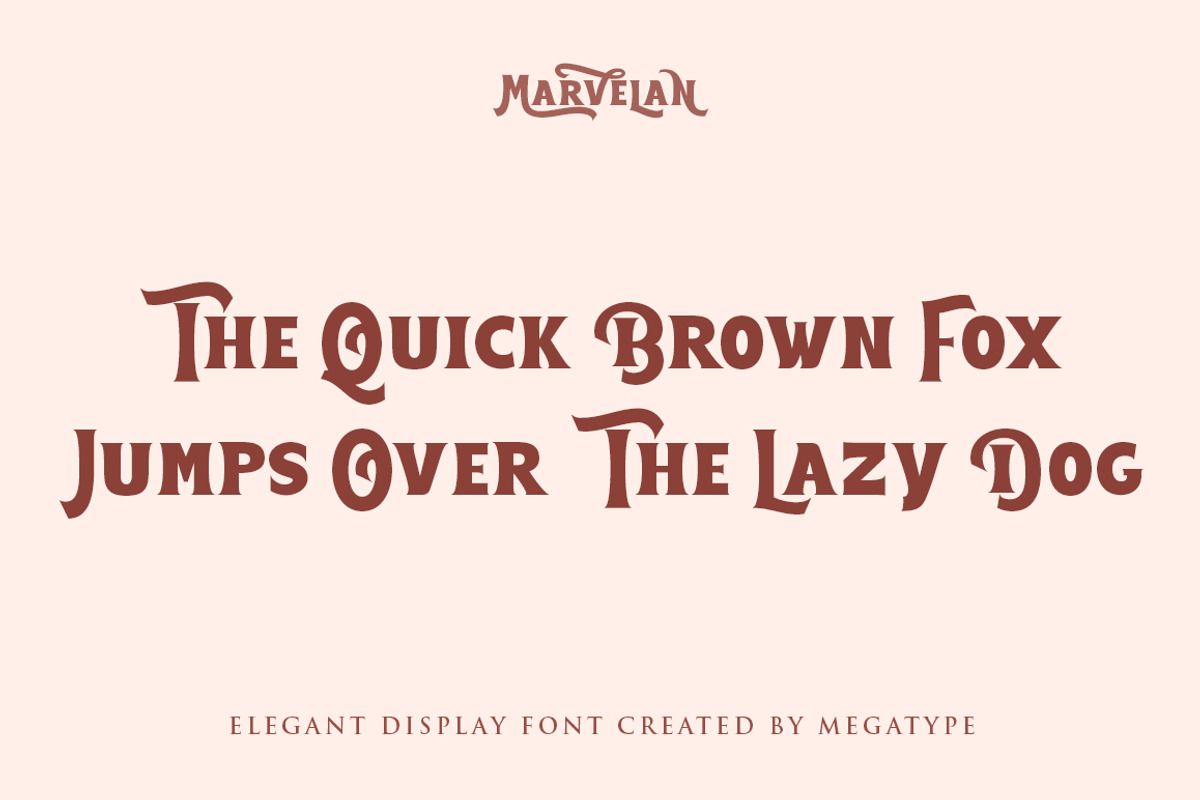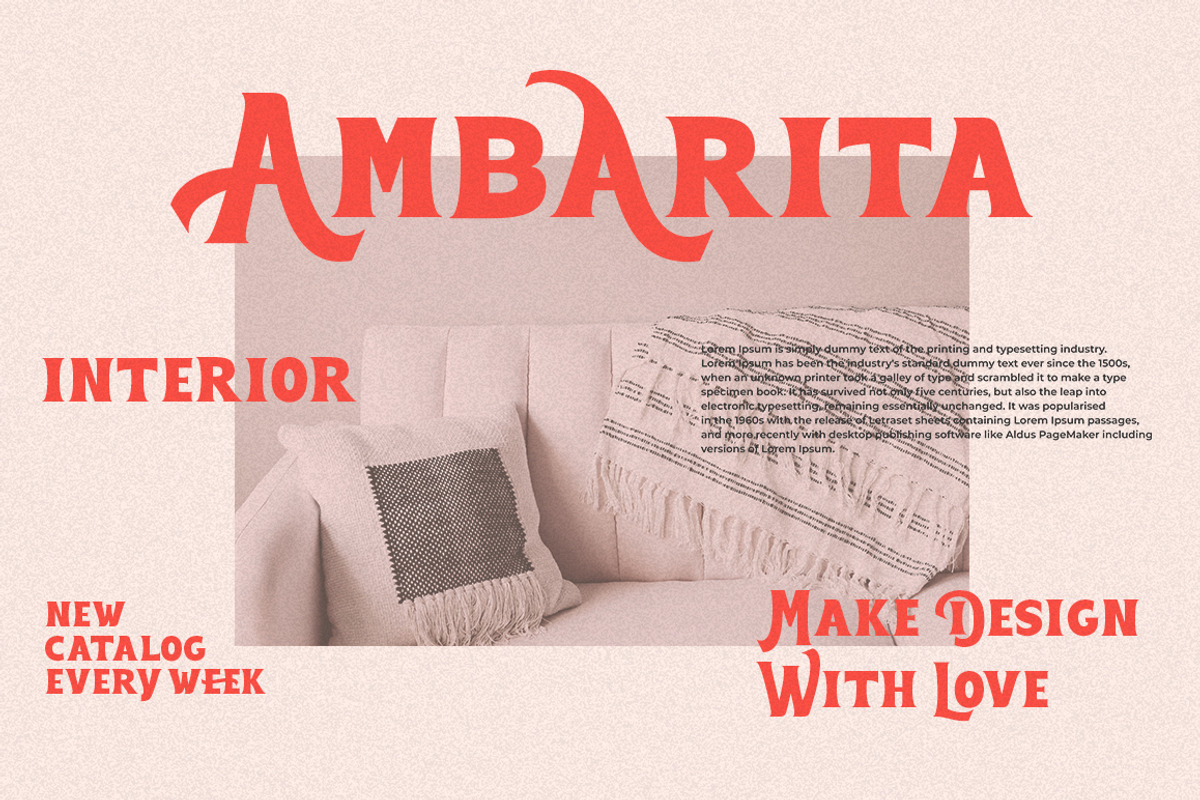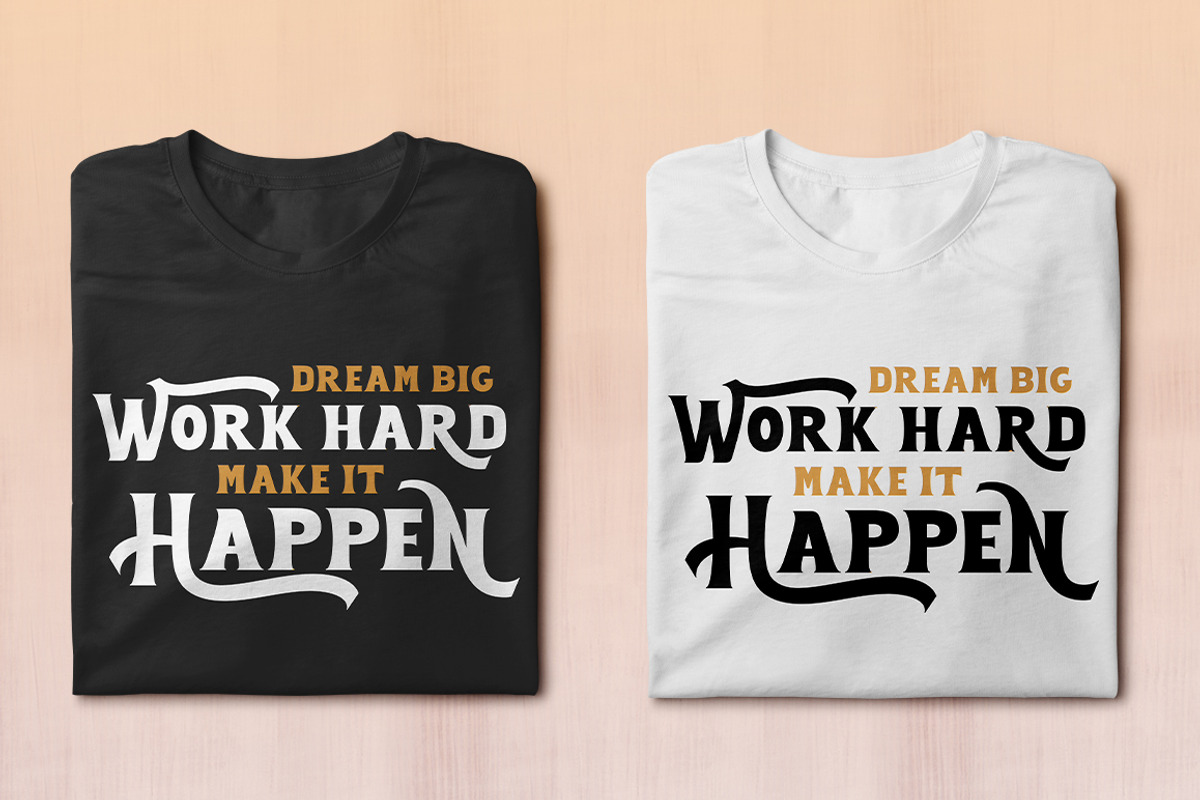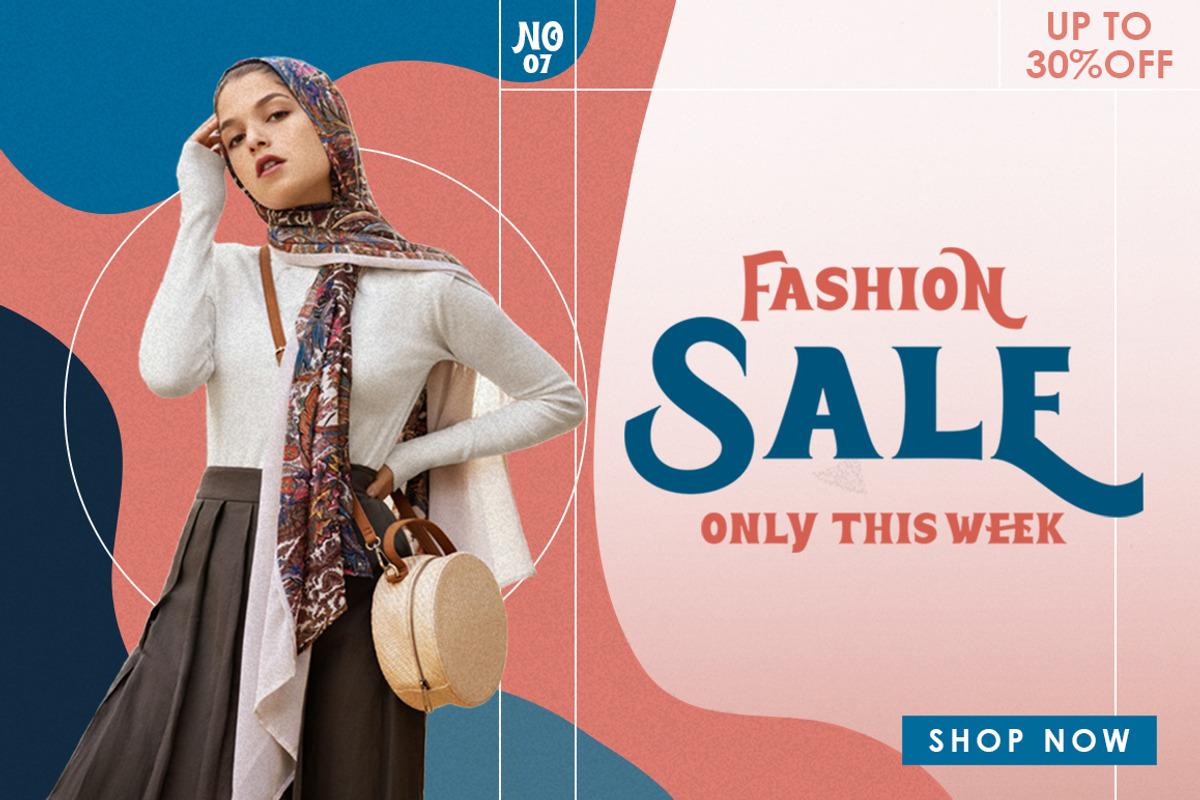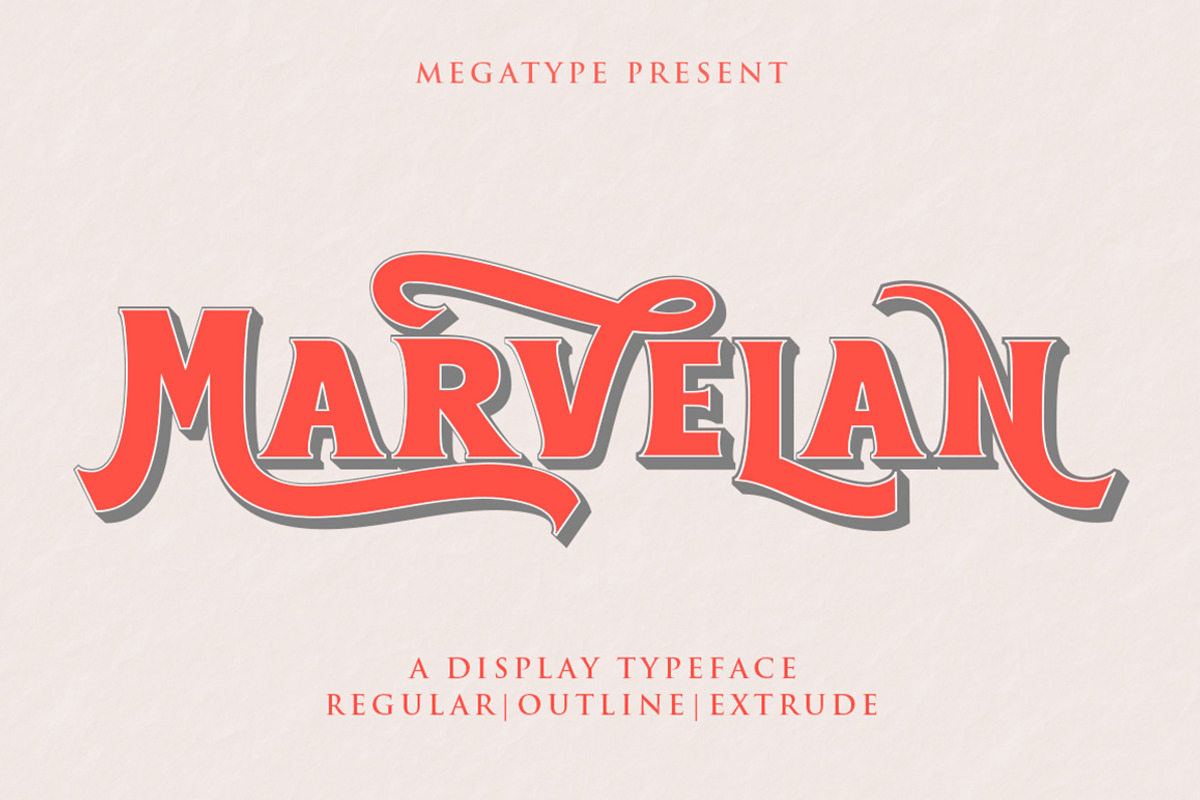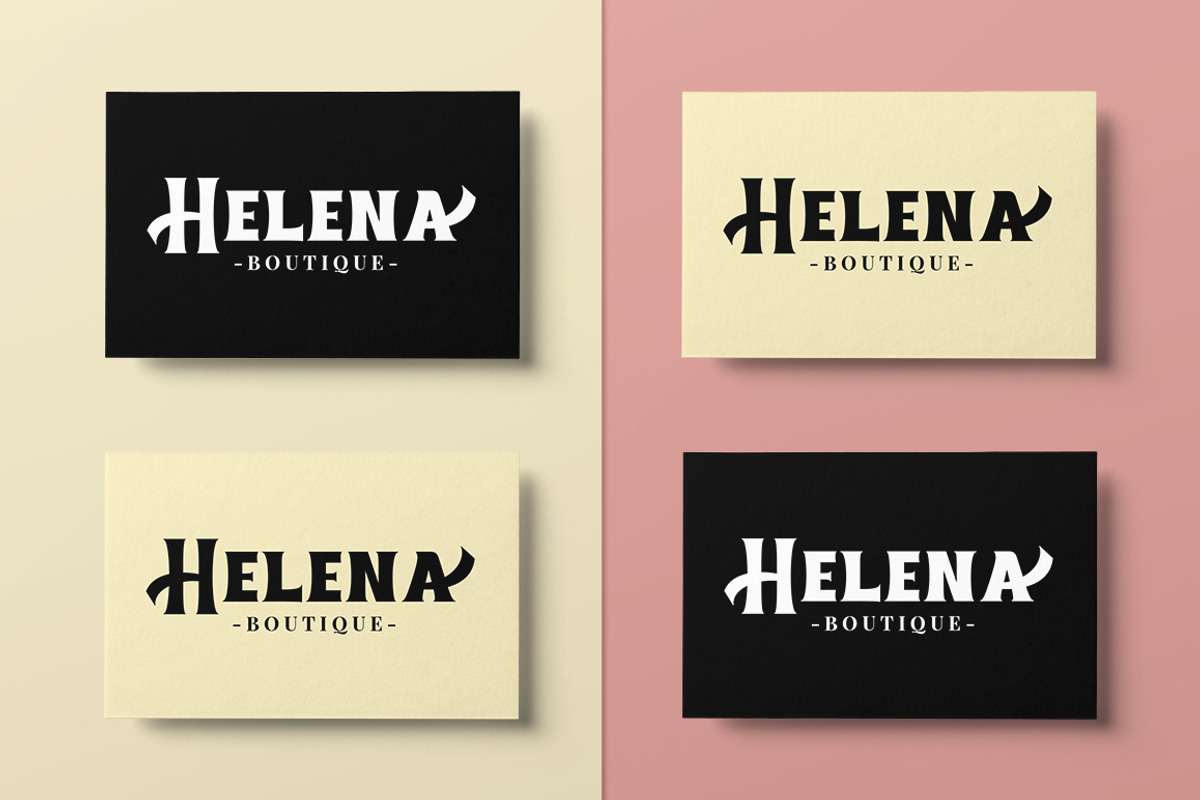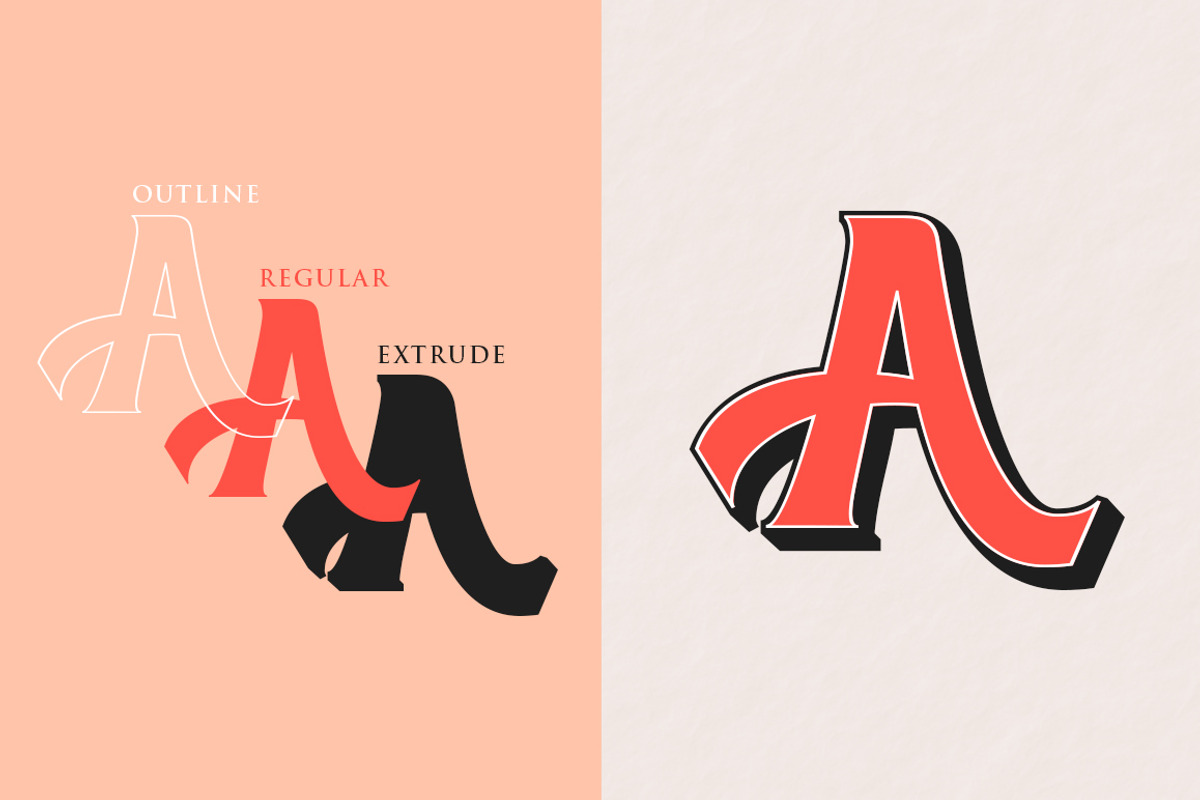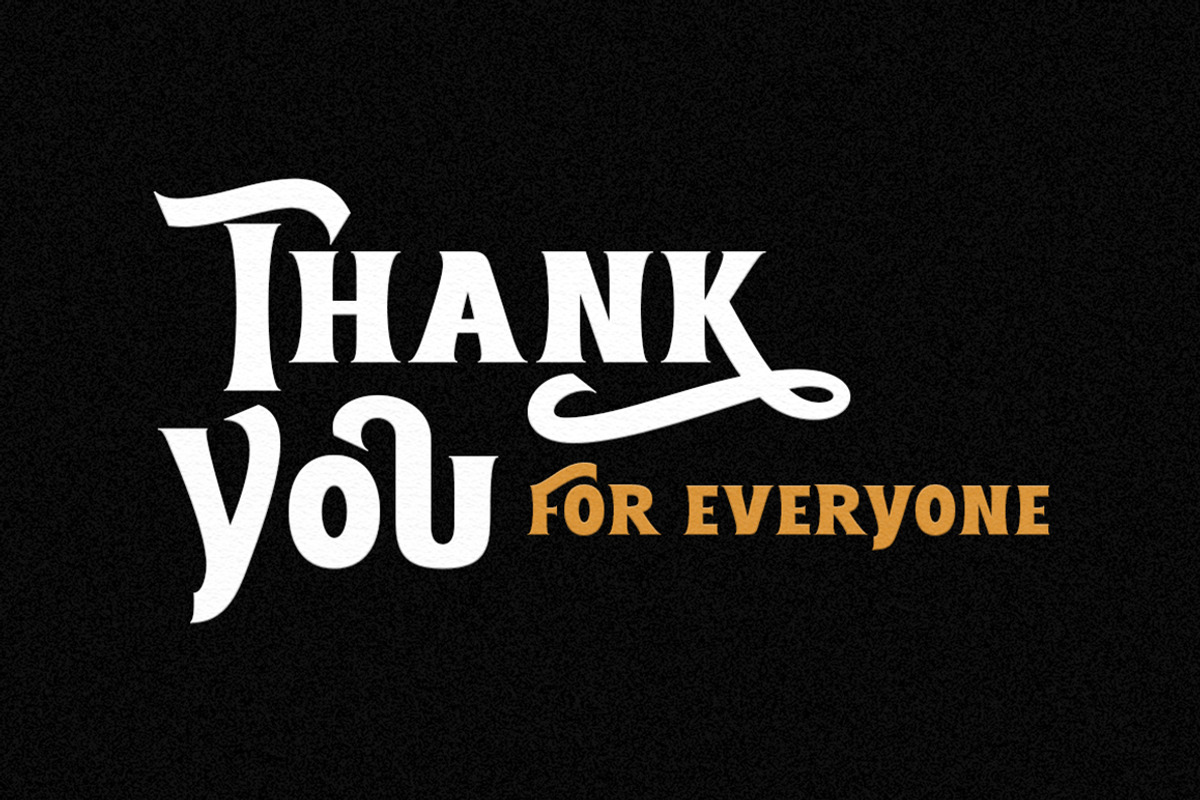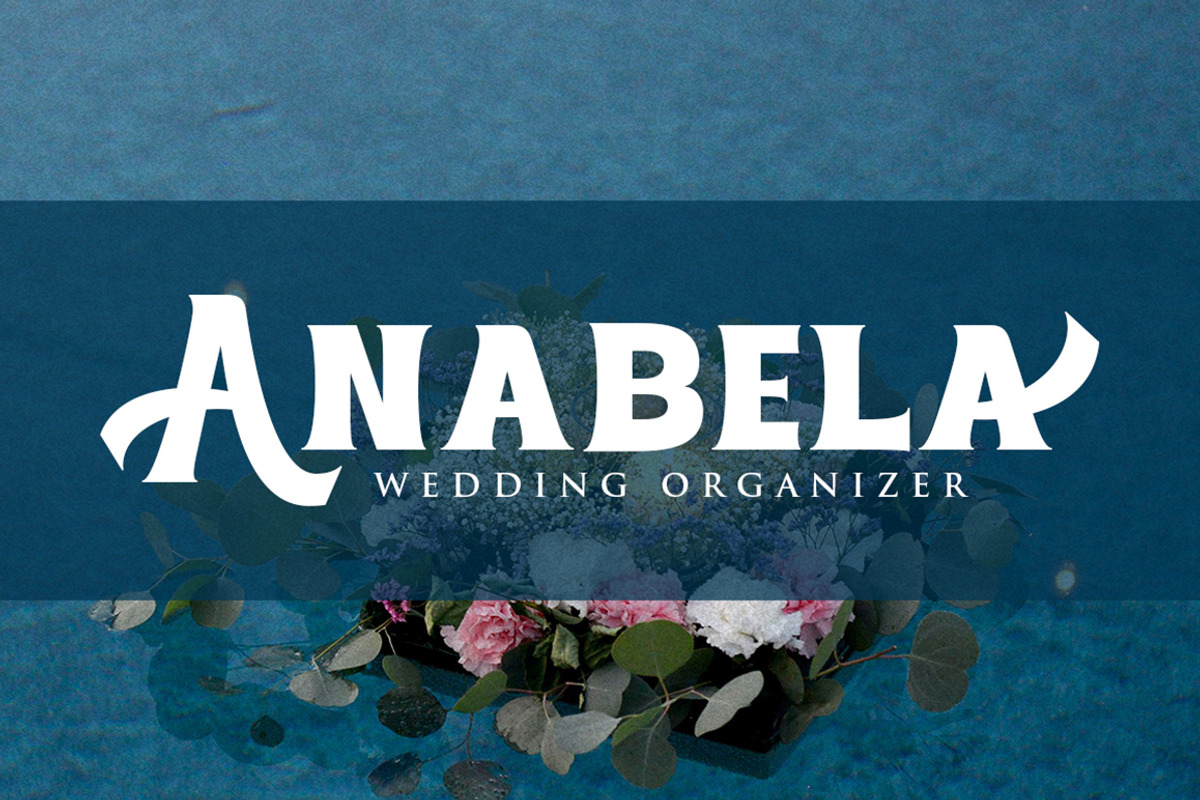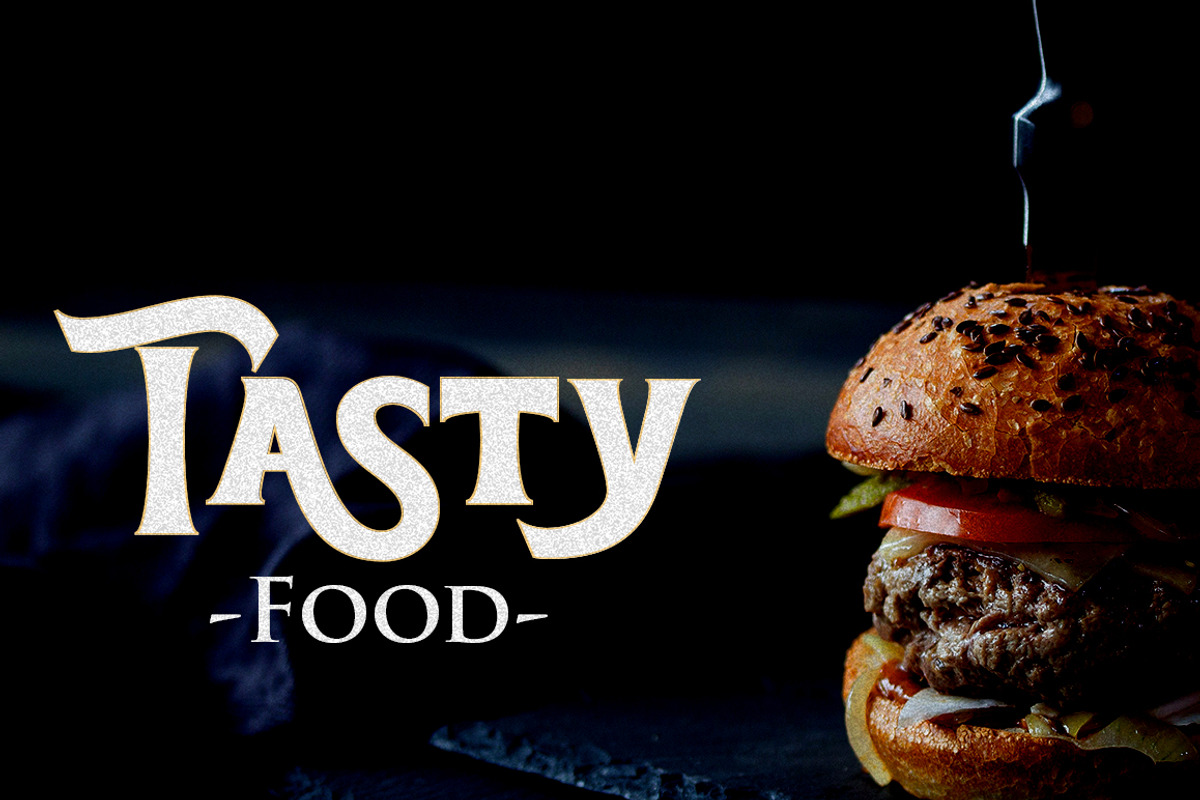
Marvelan
Marvelan is a display font with a touch of style that's cheerful, elegant and strong. So it is suitable for use in product design and appearance, both in modern or vintage designs. OpenType feature with several alternative characters that allow you to mix and match letter pairs to suit your design. Marvelan also includes 3 different styles, namely Regular, Outline and Extrude which are made with different styles but still have the same characters.
Marvelan is included in a display font so it is very suitable for use in titles, poster products, logos, book menus, websites, books, t-shirts, posters, book covers, labels, business cards, branding, print templates and many other designs according to your needs.
Marvelan includes a complete set of upper and lowercase letters, as well as multi-language support, punctuation, ligatures and alternatives.